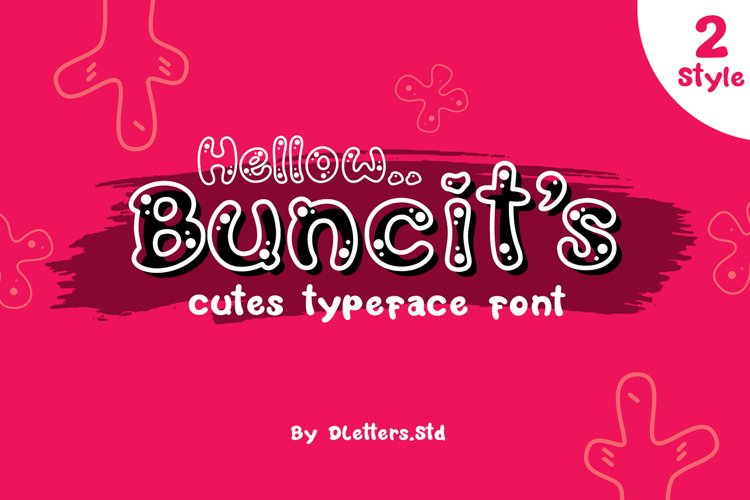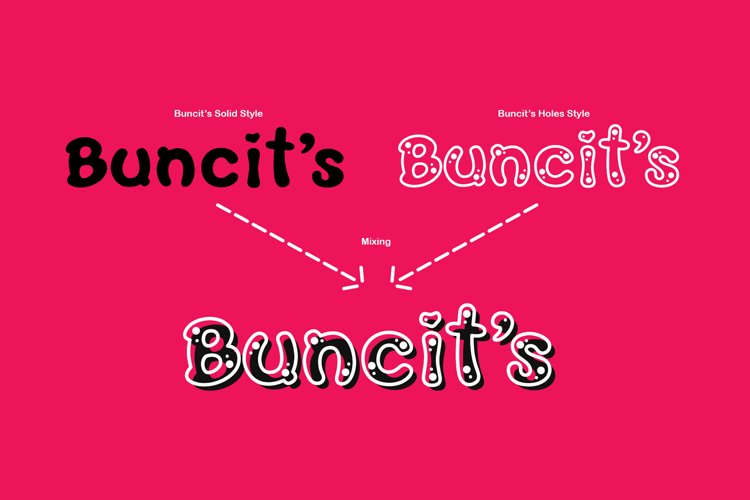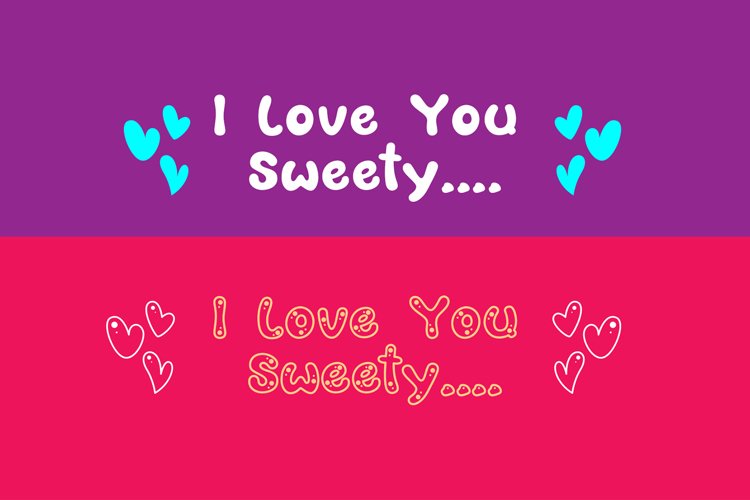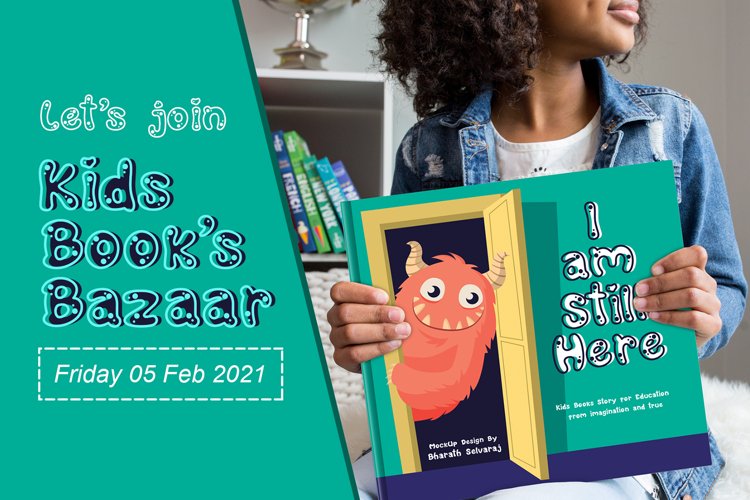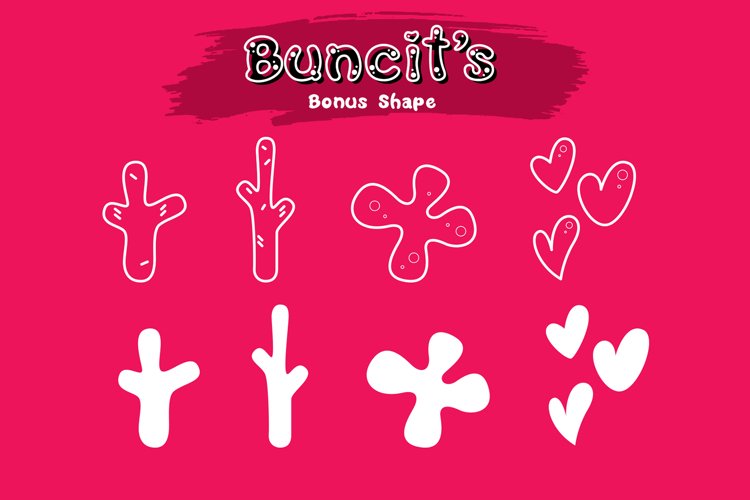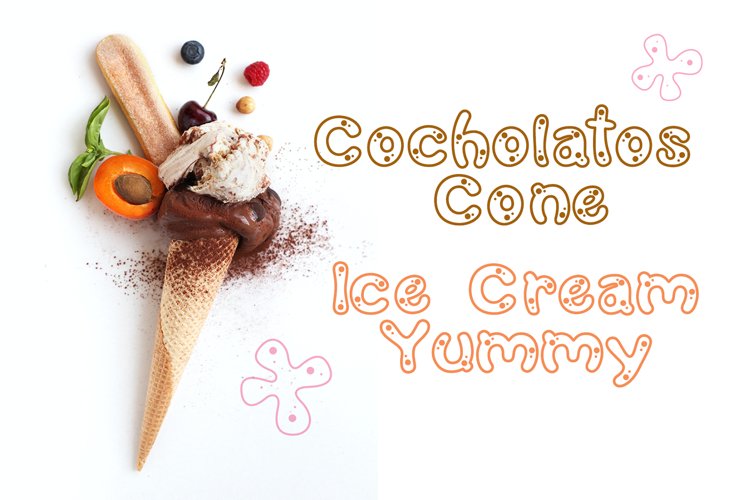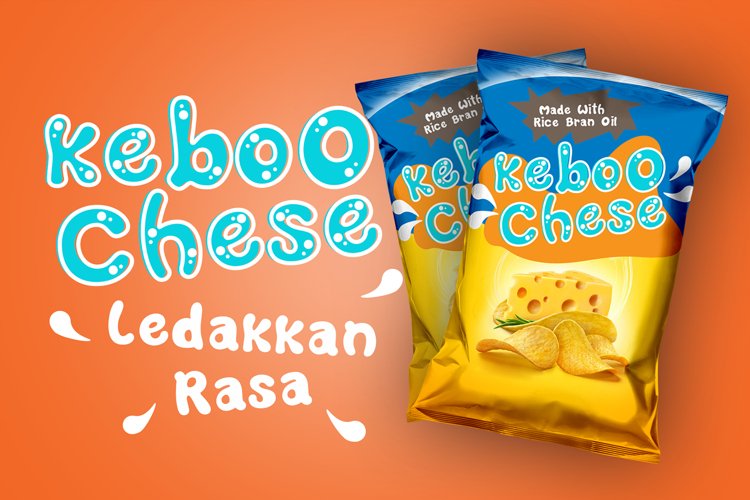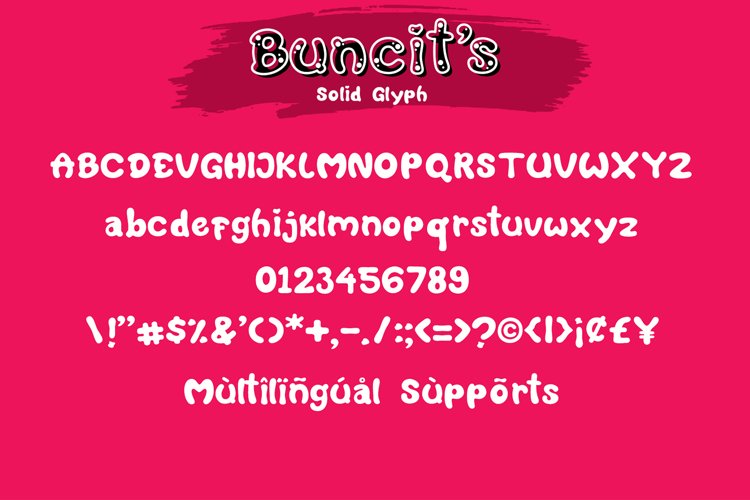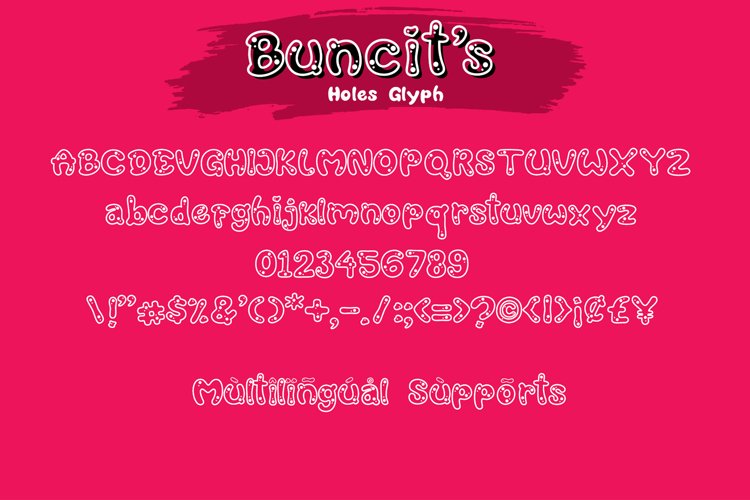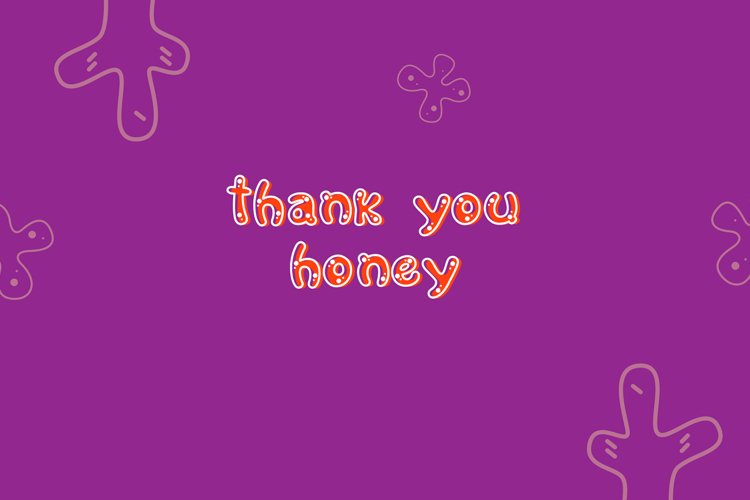
buncits cutes typeface font 2 style
Buncits Solid
Buncits Holes
Hellow Buncit’s is two-layered font solid and holes. Unique and funny style custom font It’s very good for cartoon logos, snack food products, short titles, children’s books, and greeting cards. Created for the cutes celebration and fun.
Buncit’s font includes uppercase, lowercase, numbers, punctuations, and has multilingual support.